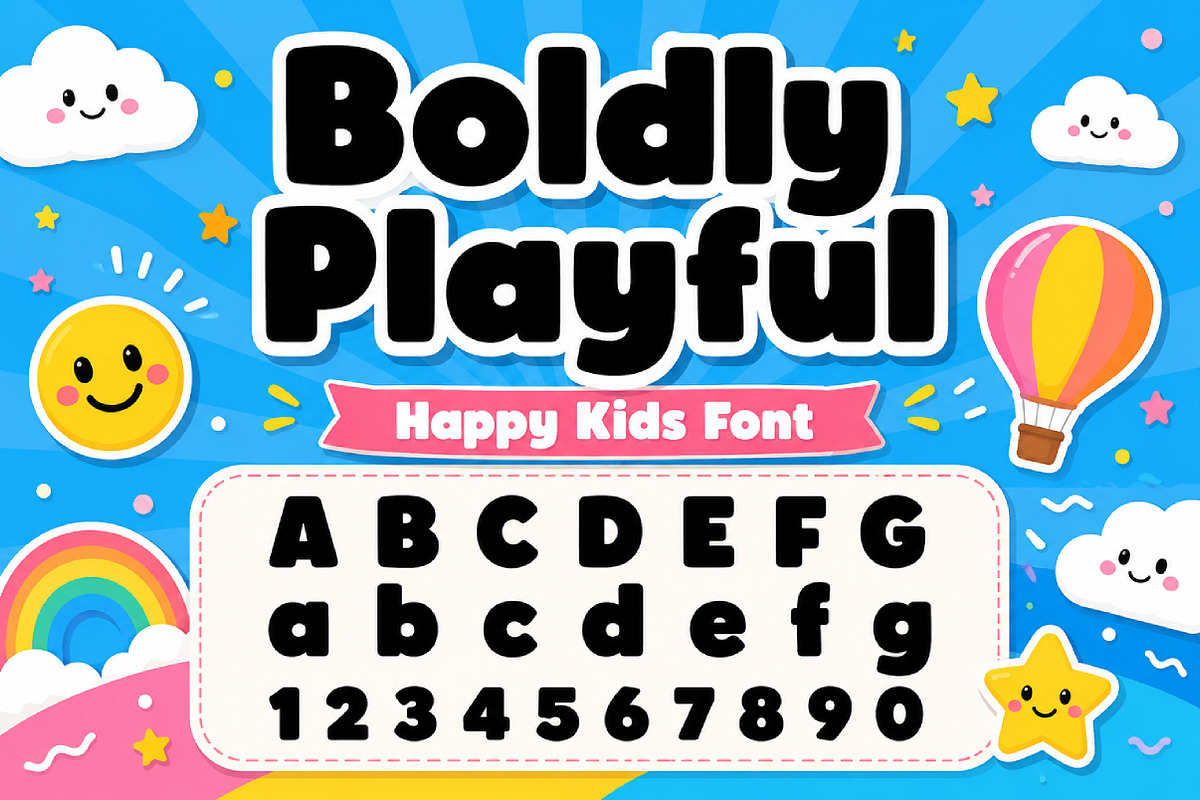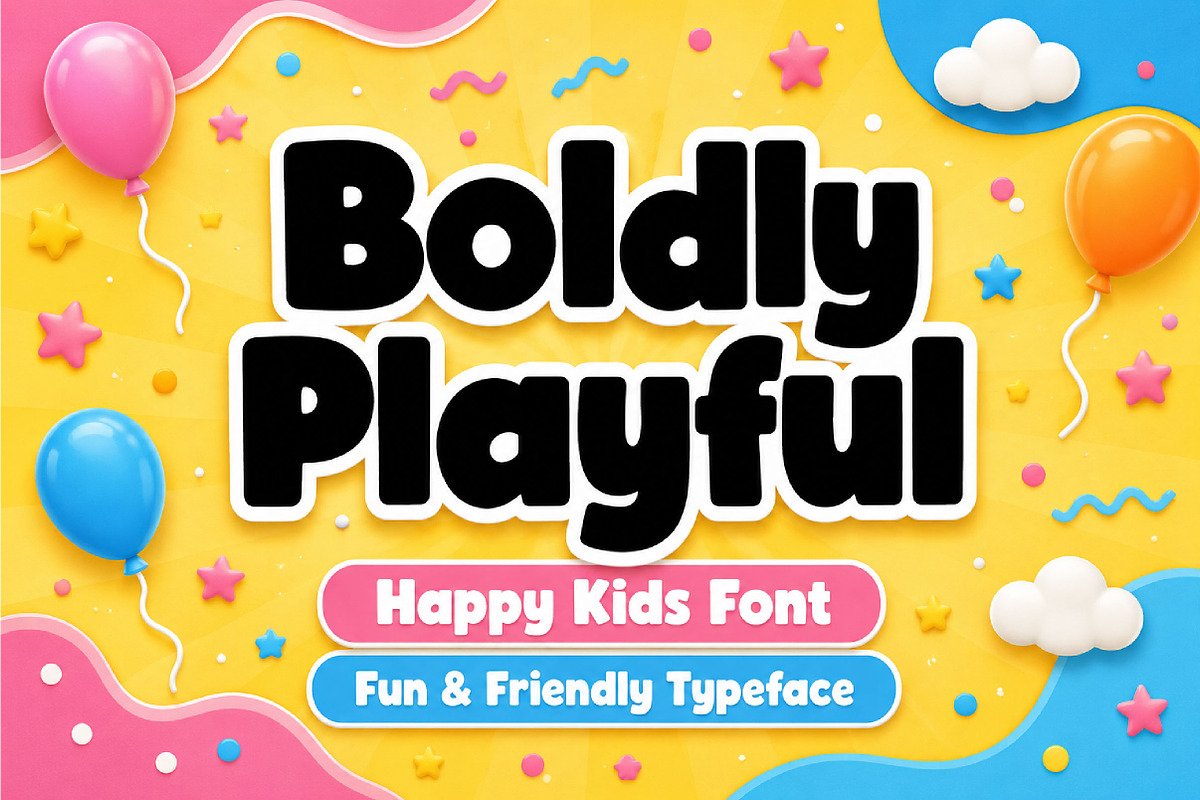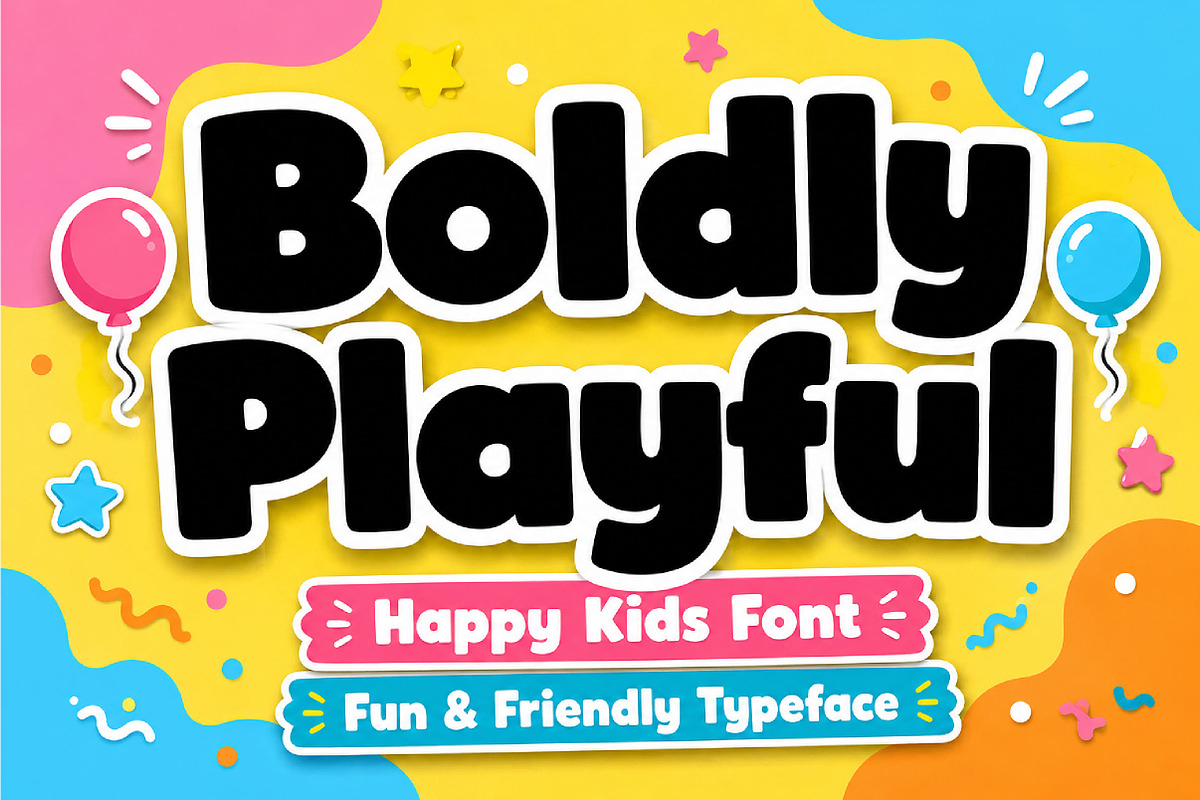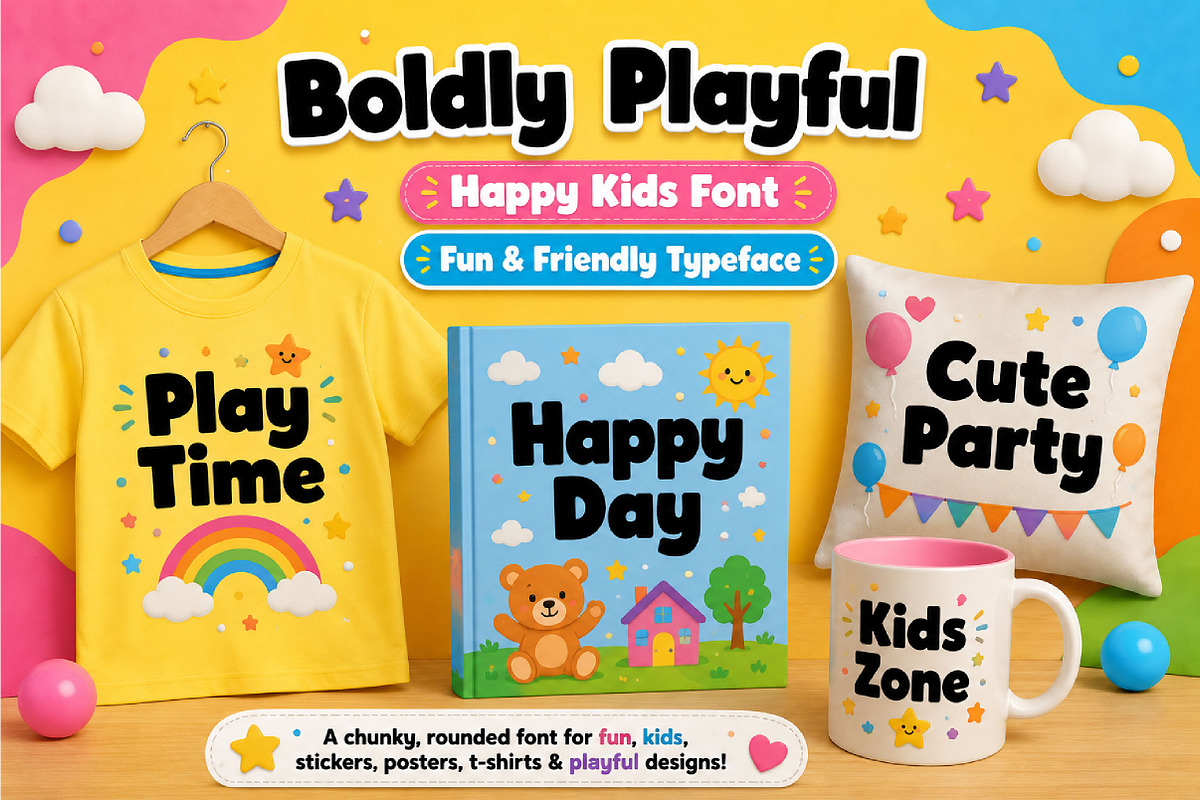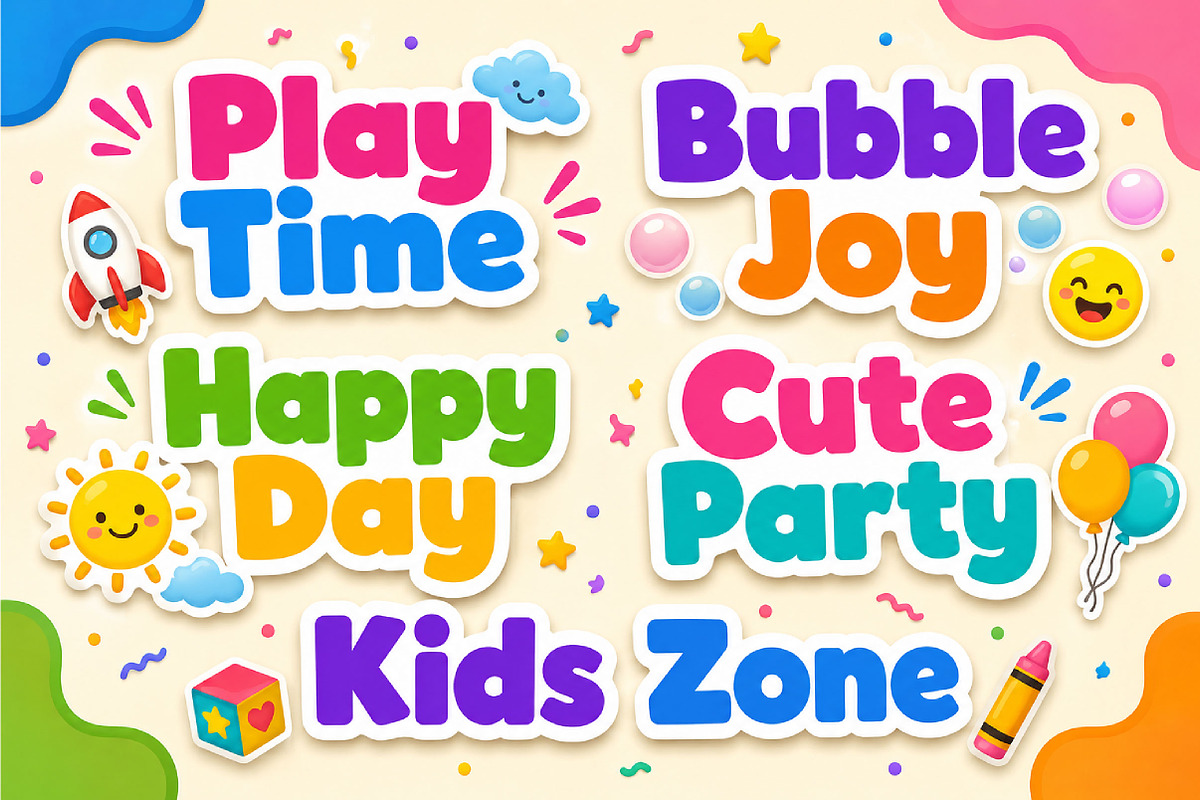
Boldly Playful
Boldly Playful – Fun Rounded Display Font
Boldly Playful is a chunky, fun, and cheerful display font with rounded edges, perfect for kids’ designs, playful branding, posters, packaging, and social media graphics.
Boldly Playful is a bold and energetic display font designed to bring joy, creativity, and personality to your projects. Featuring thick letterforms, smooth rounded corners, and a playful appearance, this font creates a friendly and eye-catching visual style that instantly stands out.
Its cheerful and modern character makes Boldly Playful perfect for designs that need a fun and approachable vibe. Whether you are creating children’s products, playful branding, posters, packaging, social media content, or event graphics, this font adds warmth and excitement to every layout.
The chunky structure and soft curves provide excellent readability while maintaining a unique and lively personality. Boldly Playful works beautifully for both print and digital projects, making it a versatile choice for designers looking for a bold yet friendly display font.
Designed for impactful typography, Boldly Playful is ideal for headlines, logos, merchandise, advertising, and creative projects that want to feel bright, youthful, and full of energy.
Kids and children’s designs
Playful branding
Posters and headlines
Packaging design
Stickers and merchandise
YouTube thumbnails
Event and party graphics
Fun logo design
Creative display typography
Uppercase letters
Lowercase letters
Bold rounded style
Chunky and playful appearance
Friendly and modern character
Highly readable display font
Perfect for fun creative projects